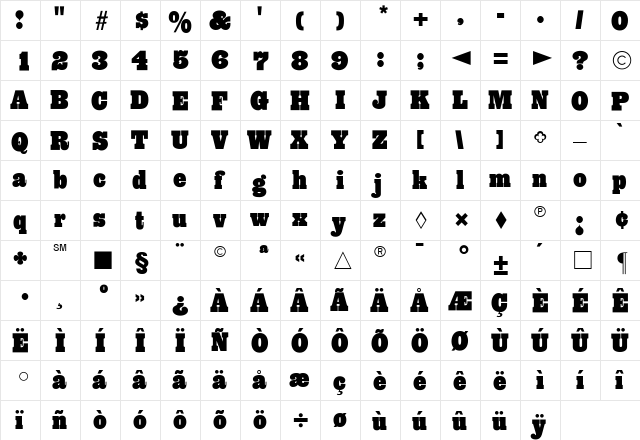
CgBehemothSeCd Medium Font Preview
CgBehemothSeCd Medium
Design Context for CgBehemothSeCd Typeface
CgBehemothSeCd offers clean, dependable letterforms without strong stylistic allegiance, making it a practical choice for designers who need flexibility.